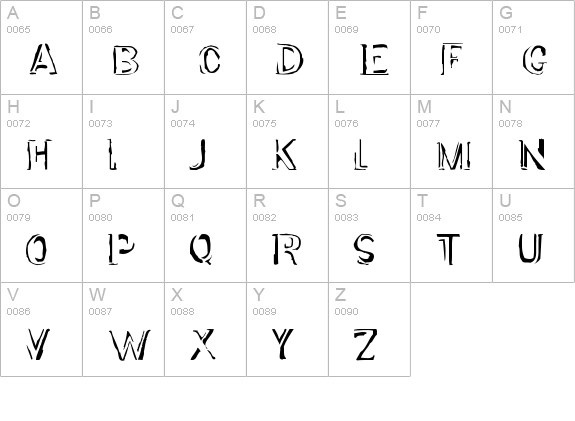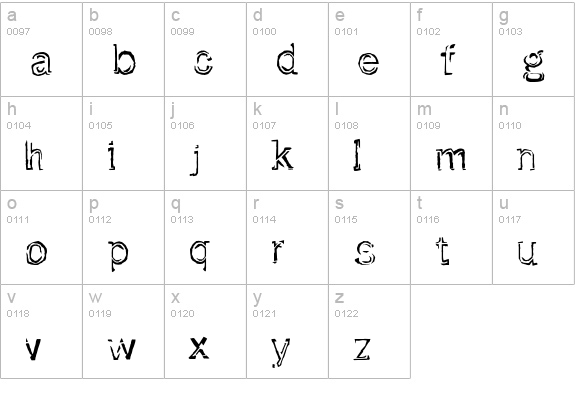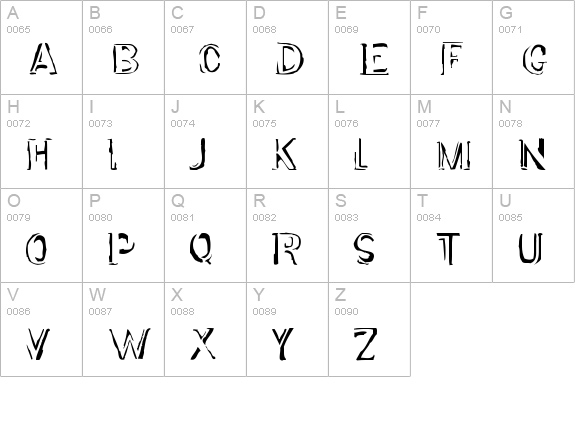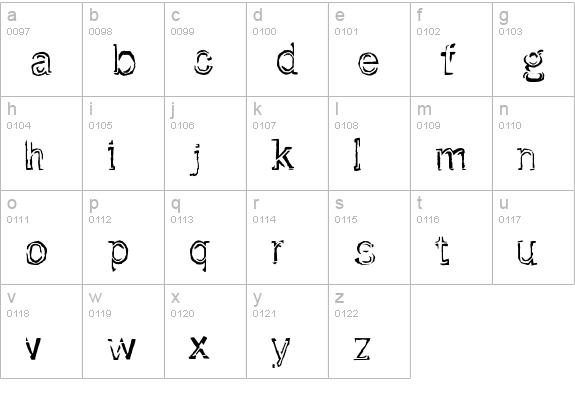
Dirtfont Font Details
Dirtfont is a unique and versatile font that captures the rugged and earthy essence of the great outdoors. Its rough edges and organic feel make it perfect for projects that require a touch of raw authenticity. Whether you're designing a logo for a wilderness adventure company or creating promotional materials for a rustic farm-to-table restaurant, Dirtfont will add a touch of natural charm to your work. Best of all, Dirtfont is available for free download at FontsMarket.com. With its wide range of glyphs and characters, this font offers endless possibilities for your creative projects. Embrace the untamed beauty of the wilderness with Dirtfont and let your designs flourish in the wild.